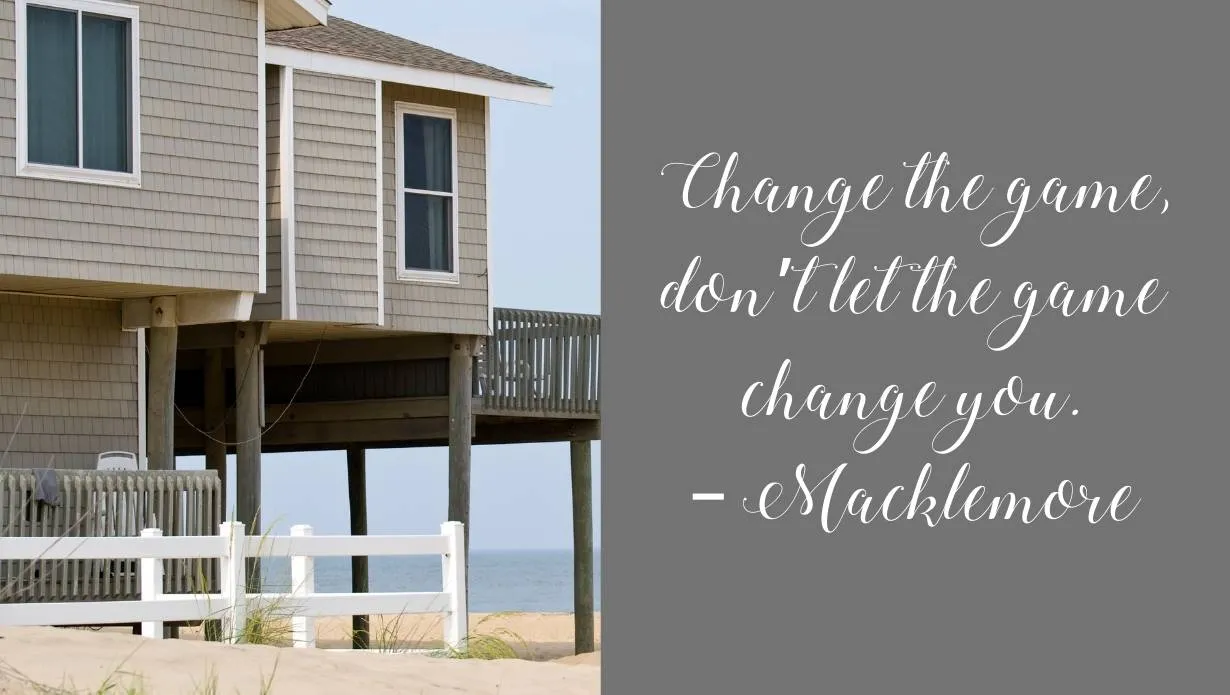
Stylish Calligraphy Font is a typeface designed by Italian calligrapher and type designer Misti’s Fonts. The font is available in both a regular and a bold weight. It has a very stylish and elegant look, perfect for titles or headings.
This cute typeface supports almost more than 50 languages. Its copy and paste function is best for various designs. Brother Tattoo Font is best similar to this typeface.